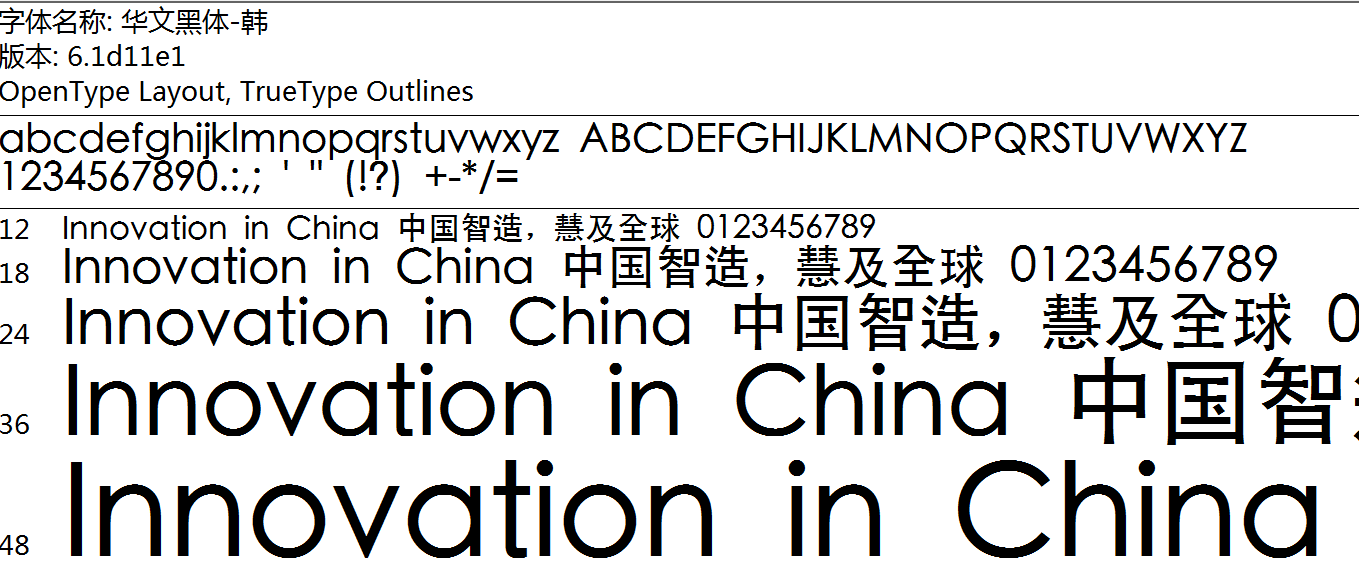
華文黑體-粗-中台韓日.ttc
華文黑體-粗-中台韓日.ttc Is a very beautiful art font, # widely used in a variety of books, album design printing, 華文黑體-粗-中台韓日.ttc has a strong visual impact, newspapers and magazines and books commonly used fonts, posters, personality promotion brand logo design, font Design, and so on. 華文黑體-粗-中台韓日.ttc Is a title for the design of the font, the font download station to provide free download, font download Daquan to provide the most complete in the English font material.